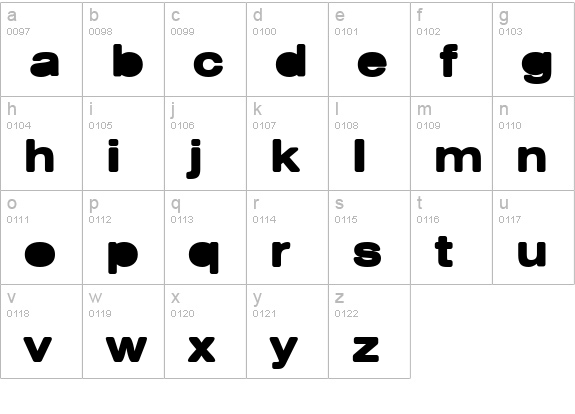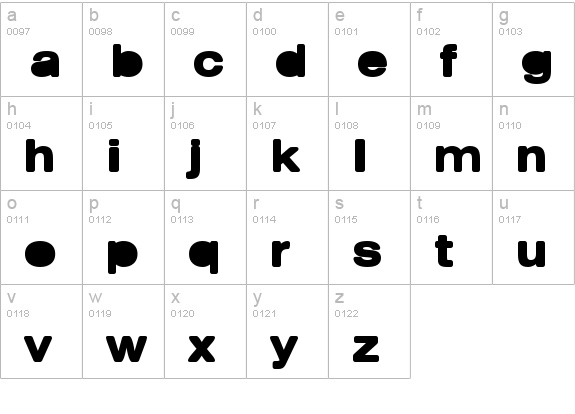
Bulldozer Font Details
Introducing Bulldozer font, a bold and powerful typeface that exudes strength and determination. With its rugged edges and industrial-inspired design, Bulldozer font is perfect for projects that require a strong and impactful look. Whether you're creating posters, logos, or branding materials, this font will make a bold statement. What's even better is that Bulldozer font is available for free download at FontsMarket.com. This means you can easily access this versatile typeface and incorporate it into your designs without any cost. Embrace the raw energy and commanding presence of Bulldozer font in your next project and watch it leave a lasting impression.